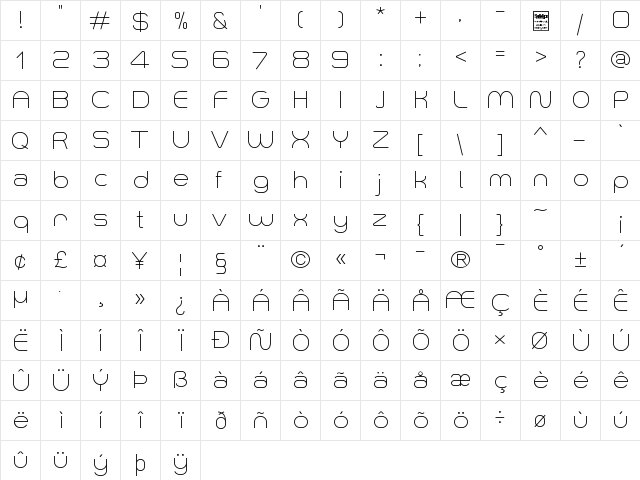
Smush Light Regular
Design Context for Smush Light Typeface
Smush Light takes a measured approach to typography — its balanced proportions and neutral character make it a reliable workhorse for both digital and print work. The delicate stroke weight brings airiness and refinement to layouts.
Pro Tip: Pair Smush Light with a font of contrasting weight or personality to build a more expressive typographic hierarchy.